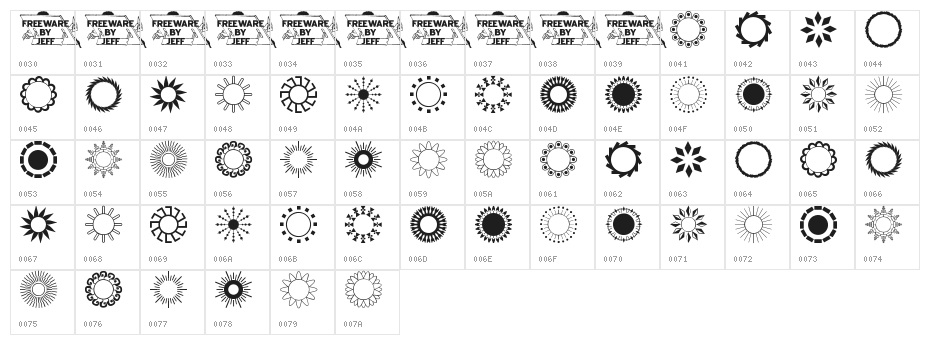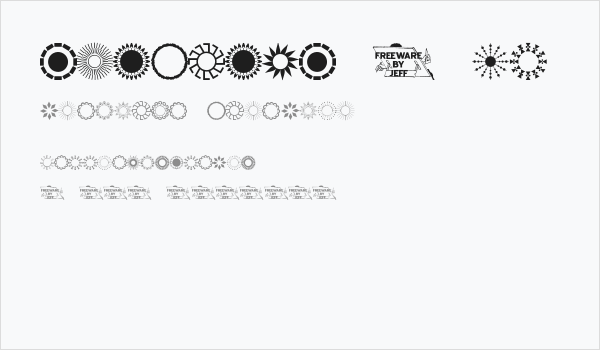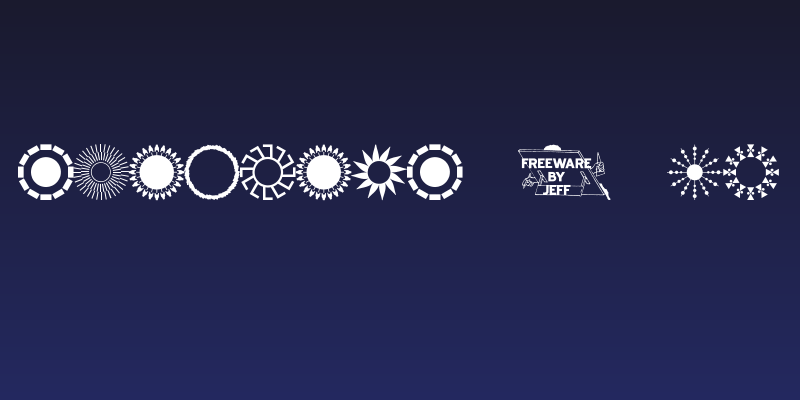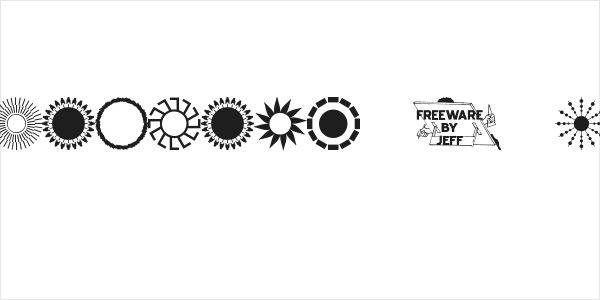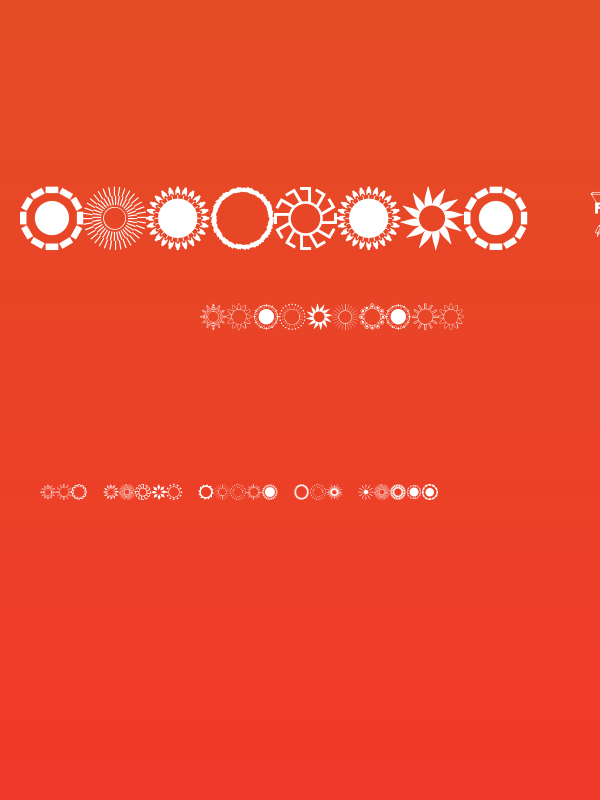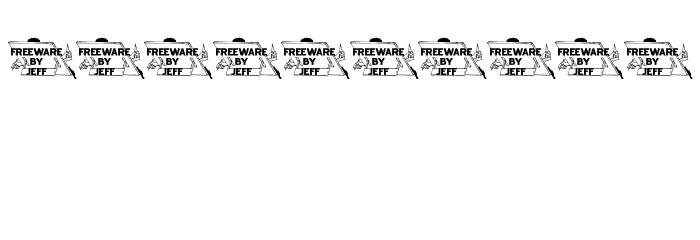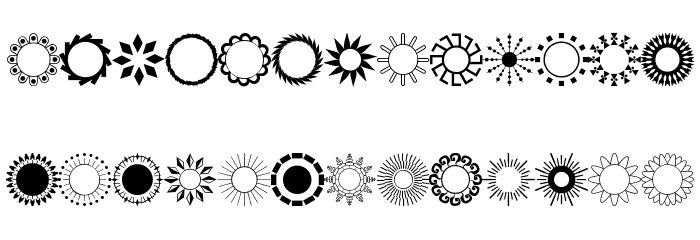
Sundings 2 JL Font
A decorative dingbat font featuring a variety of circular, sunburst, and starburst motifs, each with unique patterns and line styles. The glyphs are highly ornamental, with both filled and outlined designs, and include a special 'FREEWARE BY JEFF' badge.
| Use Case | Borders, dividers, decorative elements |
| Proposed Projects | Borders, dividers, scrapbooking, decorative accents, invitations, certificates, and creative design projects. |